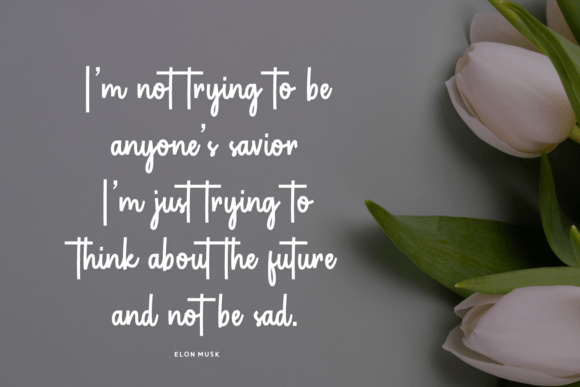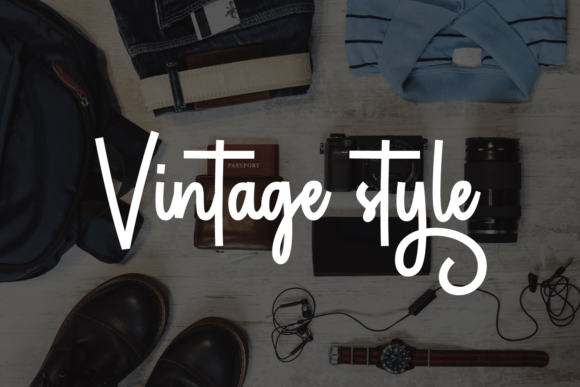
Introduction to Good Looks Font
Good Looks is a bold and beautiful script that feels powerful and divine.
It combines strong, flowing letters with elegant curves, making it perfect for titles and designs that need a touch of grace and strength Ideal for anything that celebrates femininity and empowerment.
Key Features of Good Looks Font